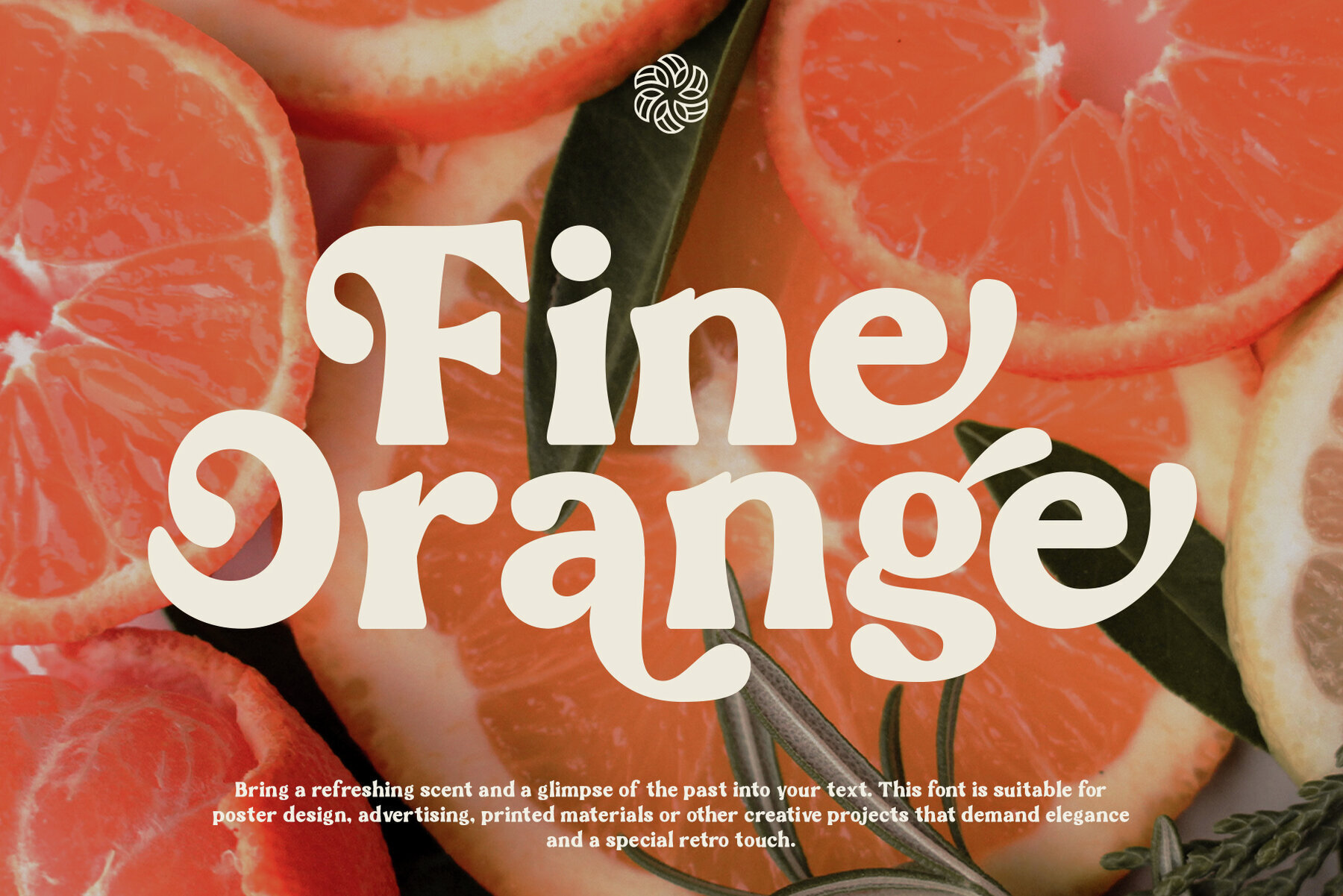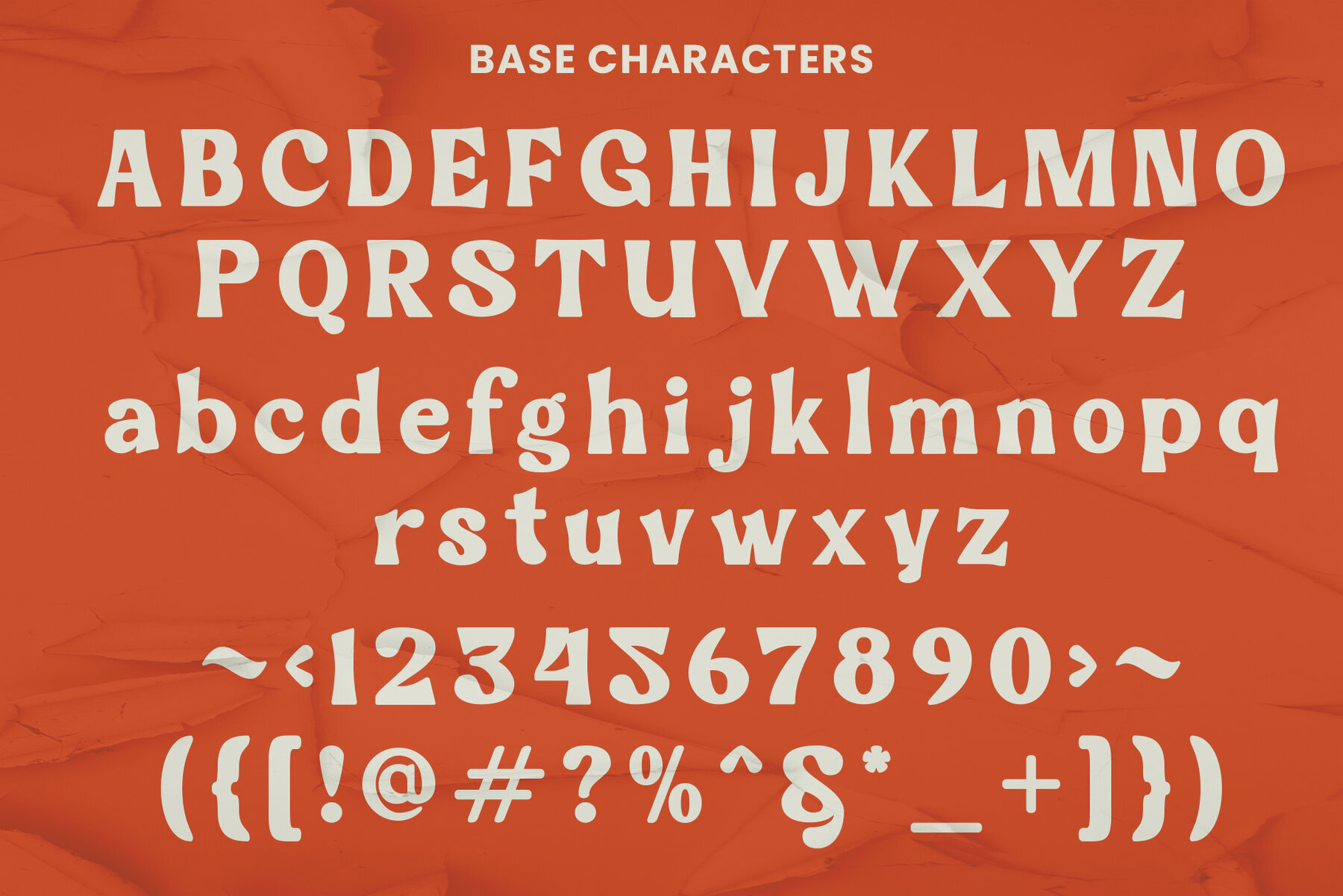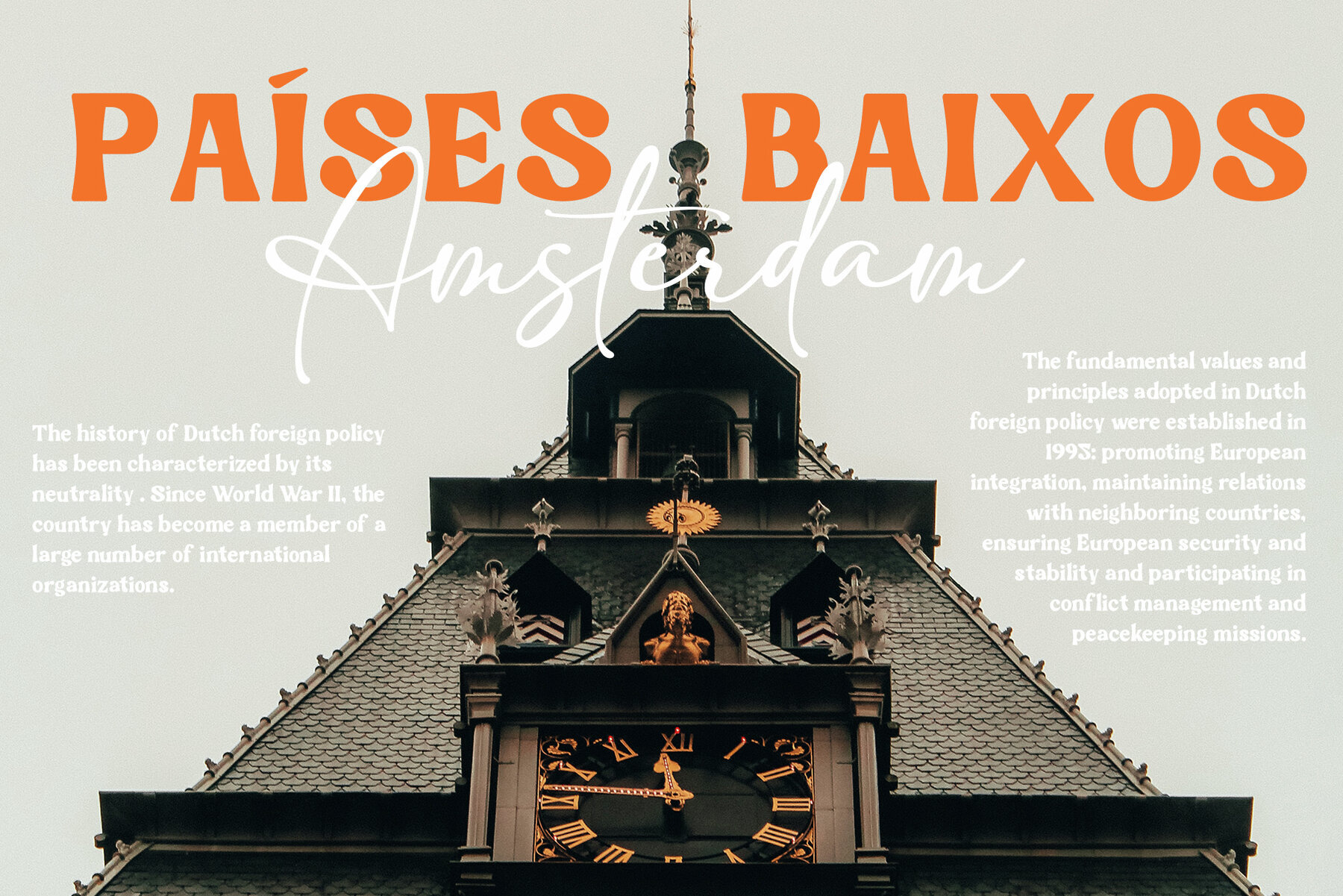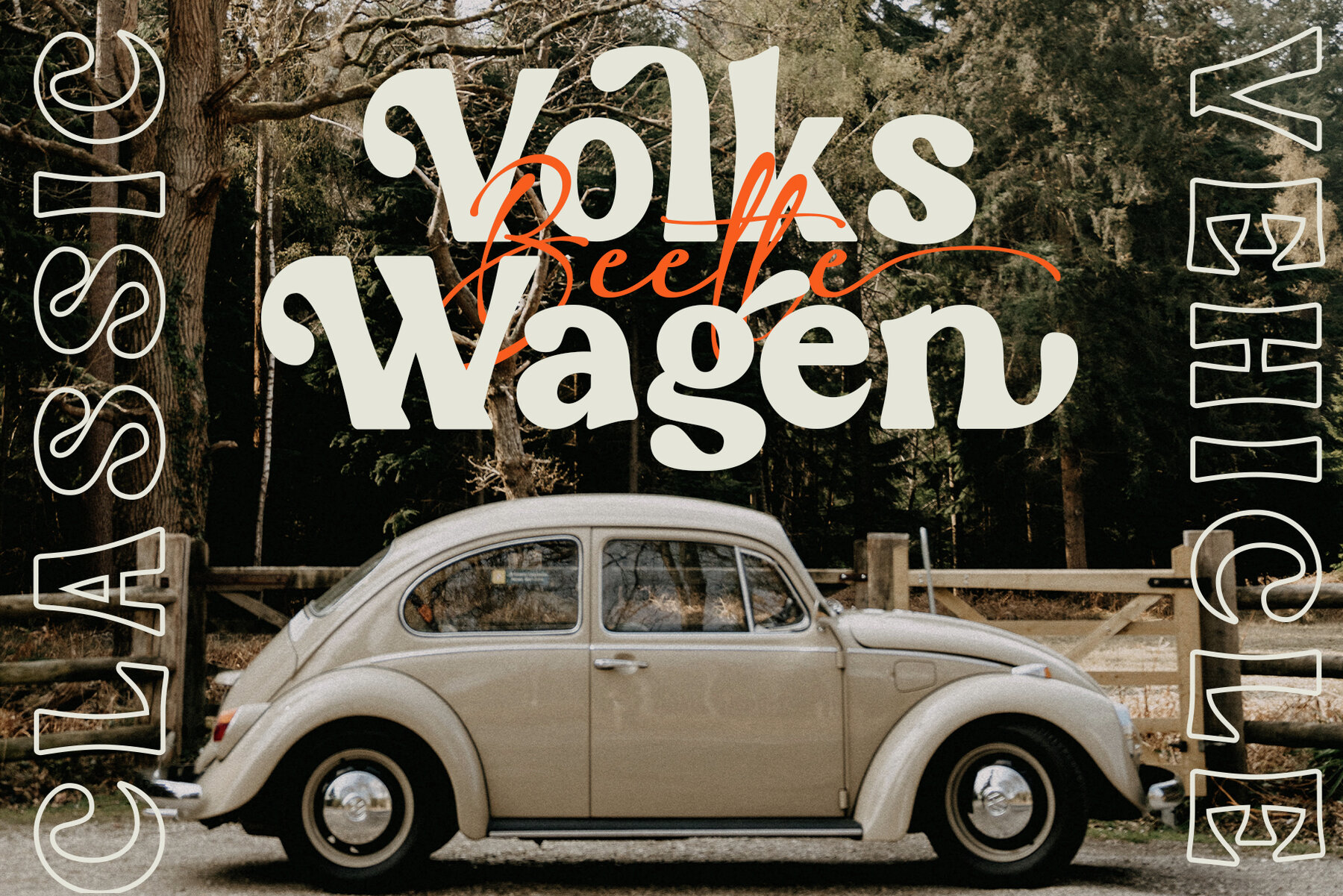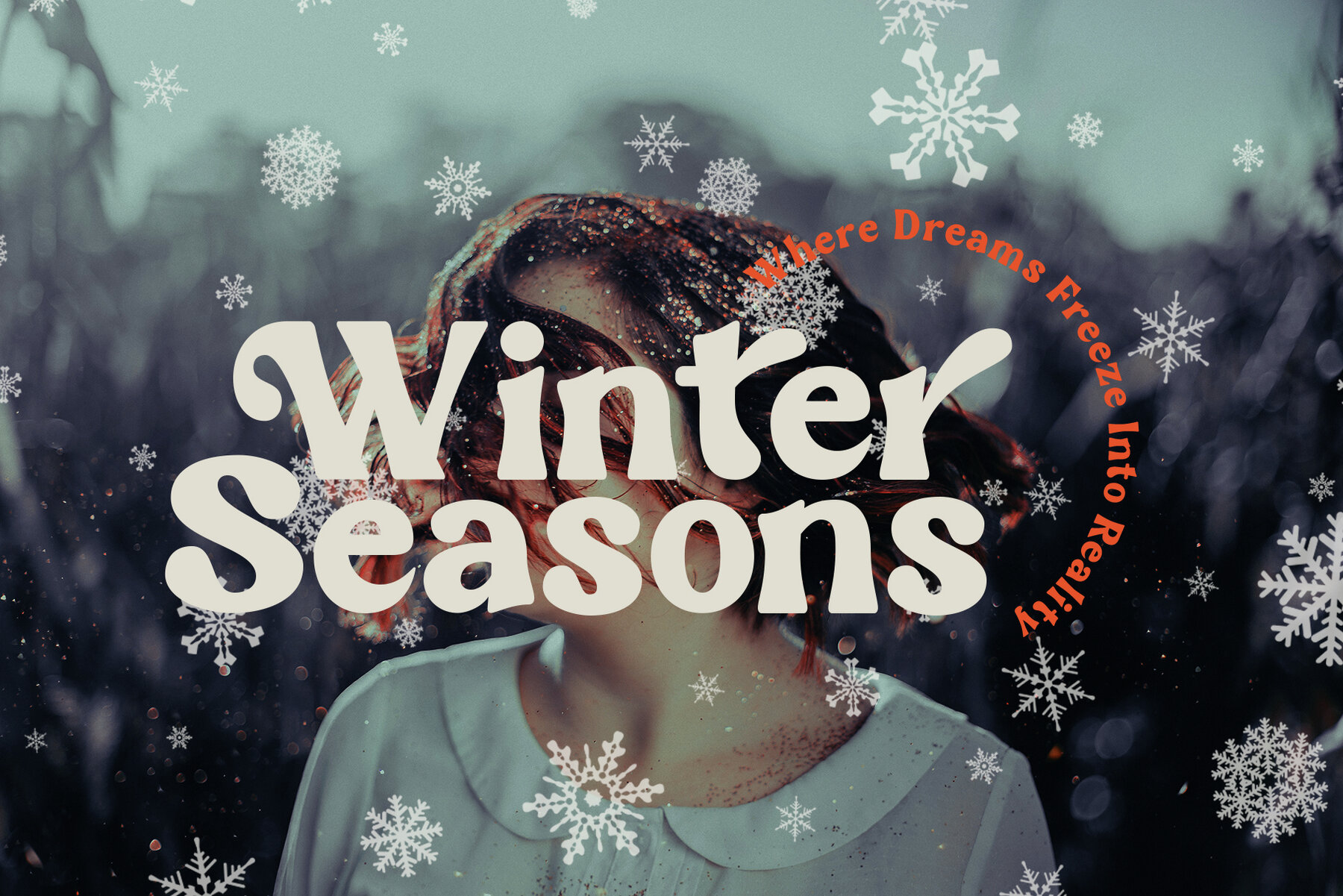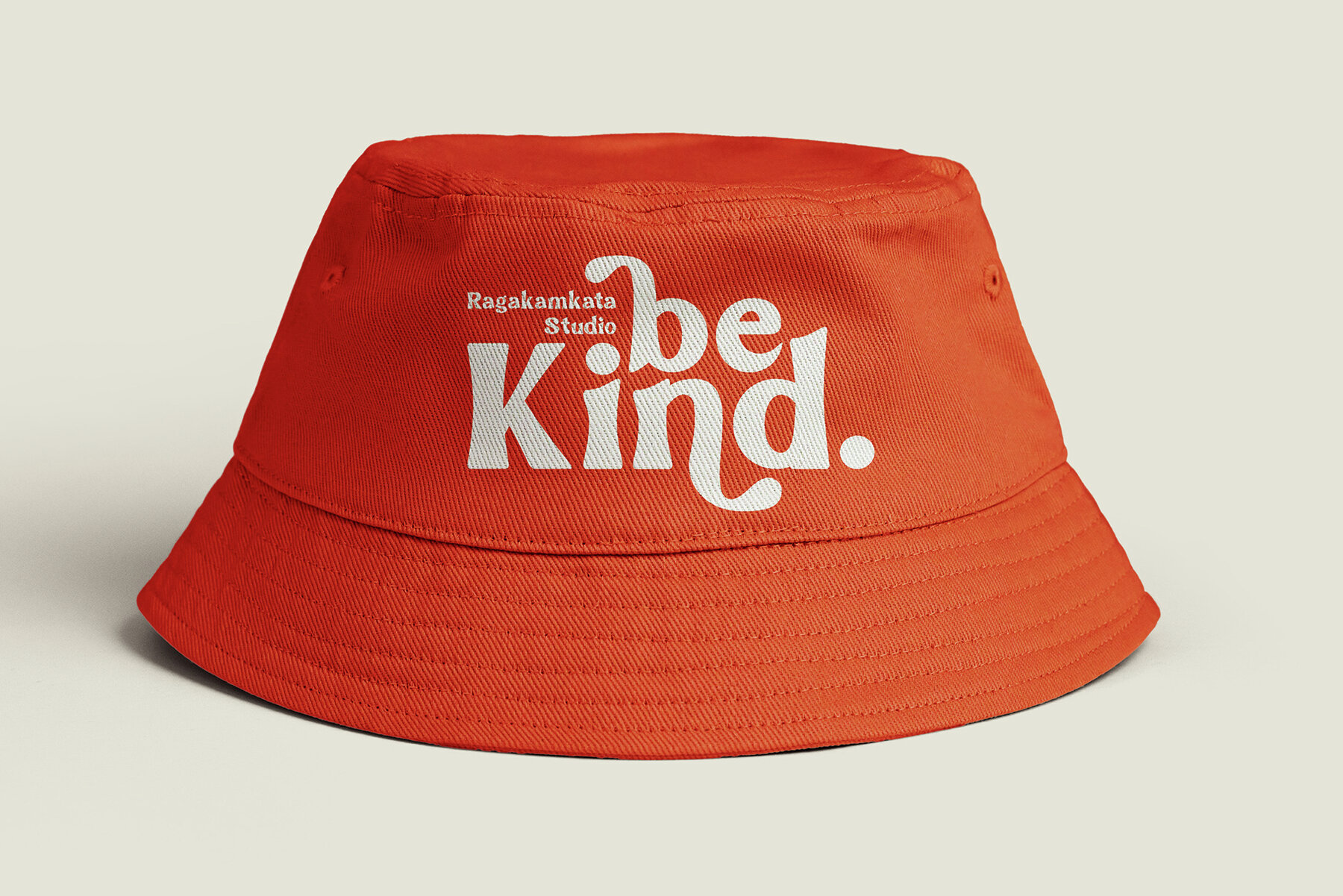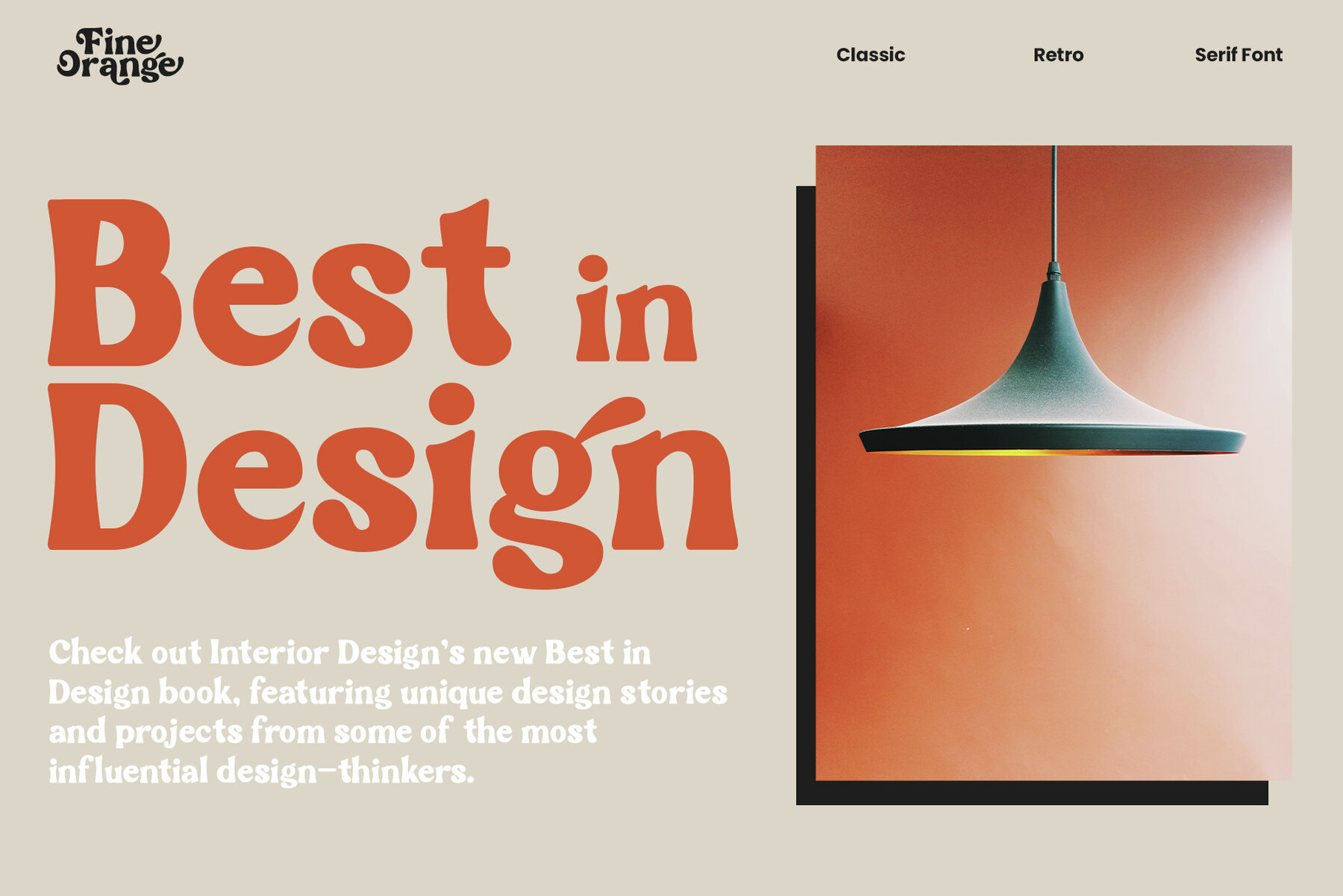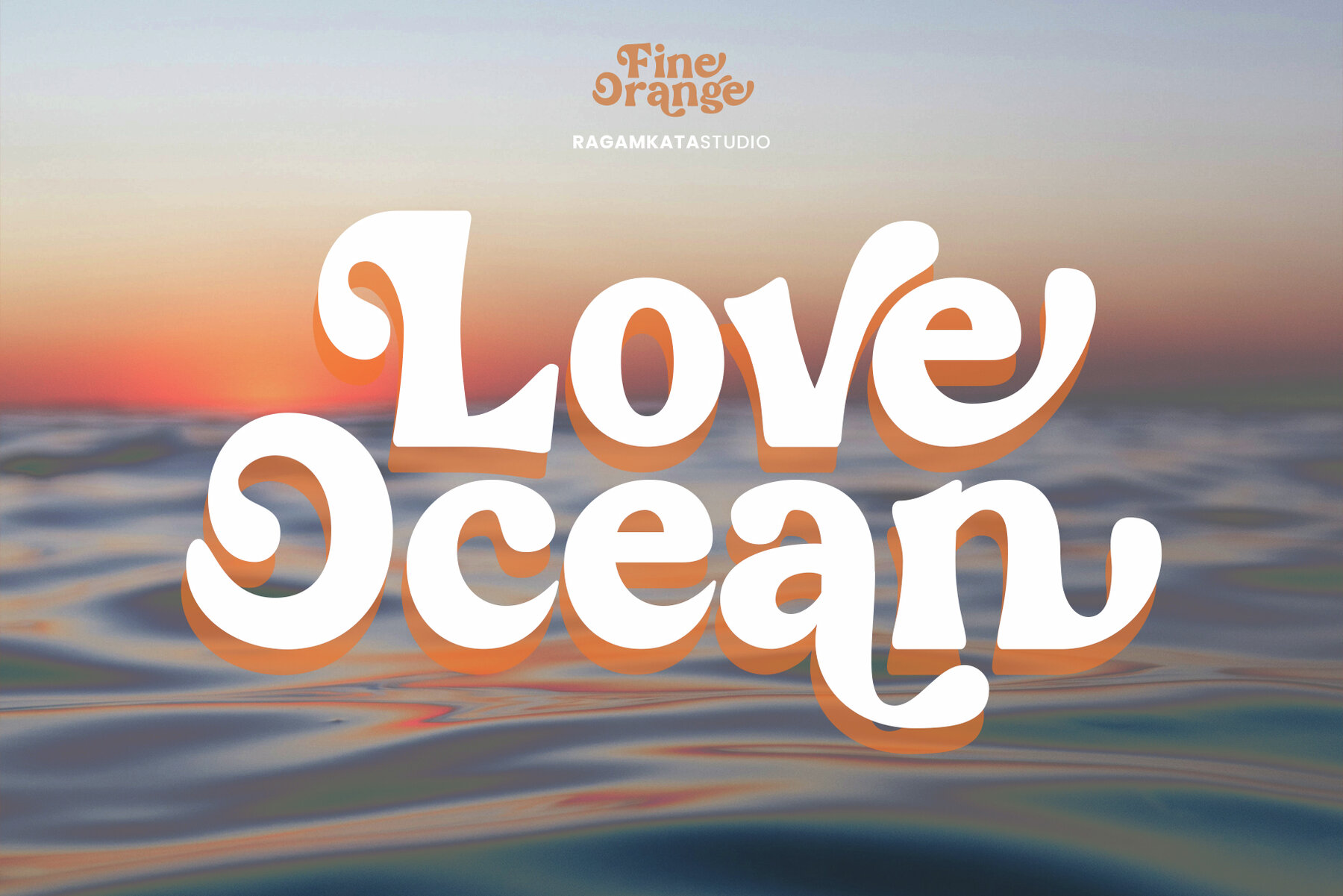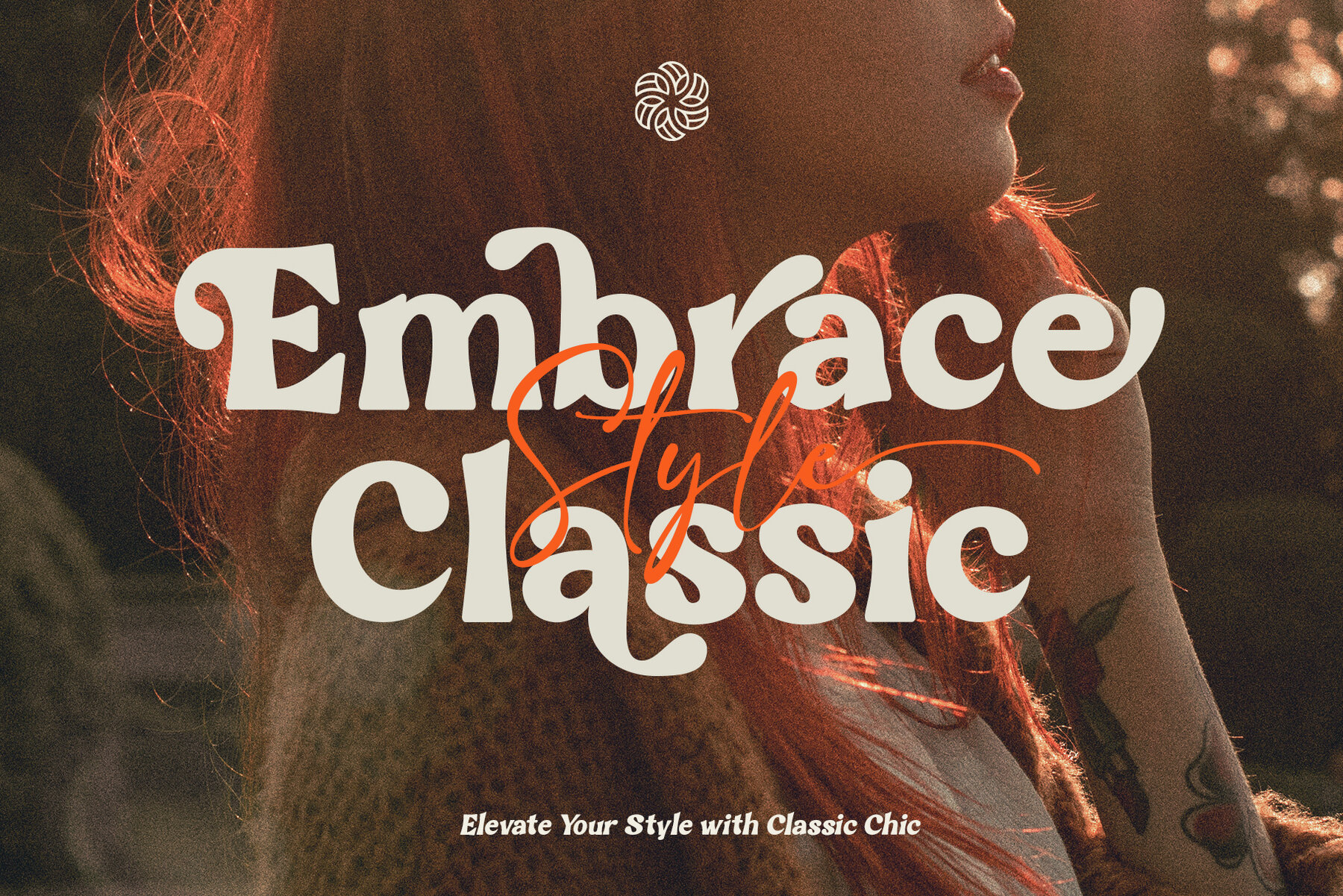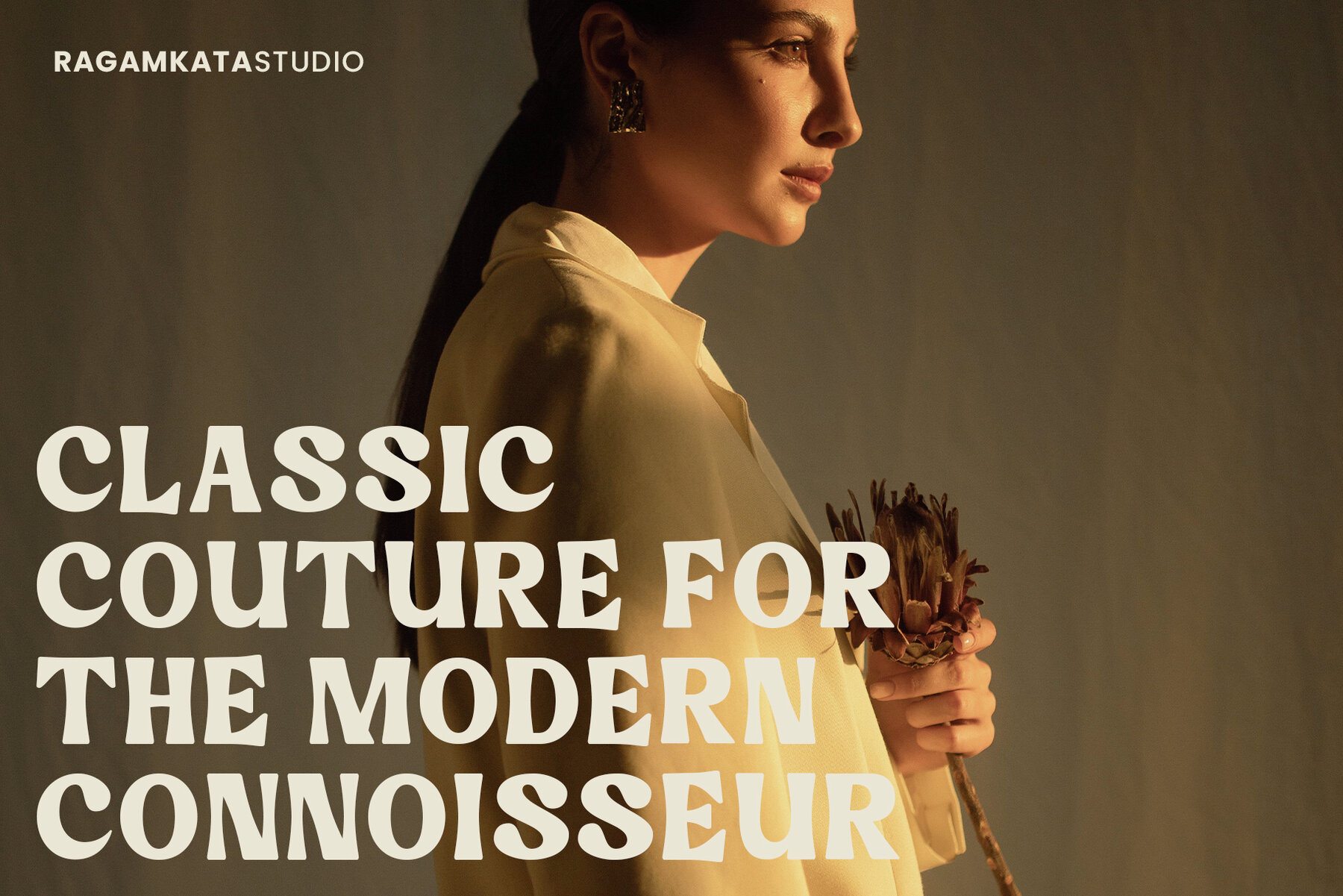
Fine Orange Font
Fine Orange
Fine Orange is a delightful serif font that effortlessly combines modern retro aesthetics with a touch of humility and friendliness. This font is crafted with meticulous attention to detail, offering a unique blend of timeless elegance and approachability. The unpretentious charm of Fine Orange makes it an ideal choice for projects requiring a friendly and approachable vibe. Its letterforms exude a sense of humility, inviting readers in. Whether your focus is branding, editorial design, packaging, or web design, Fine Orange adapts seamlessly to various contexts, adding a touch of sophistication and warmth. Elevate your design projects with the timeless beauty and friendly appeal of Fine Orange. It's the perfect choice for infusing retro charm into your creations while maintaining an approachable and welcoming aesthetic.Fine Orange: Versatile Serif with Modern Retro Aesthetics
Unique Features
Add a Touch of Retro Charm